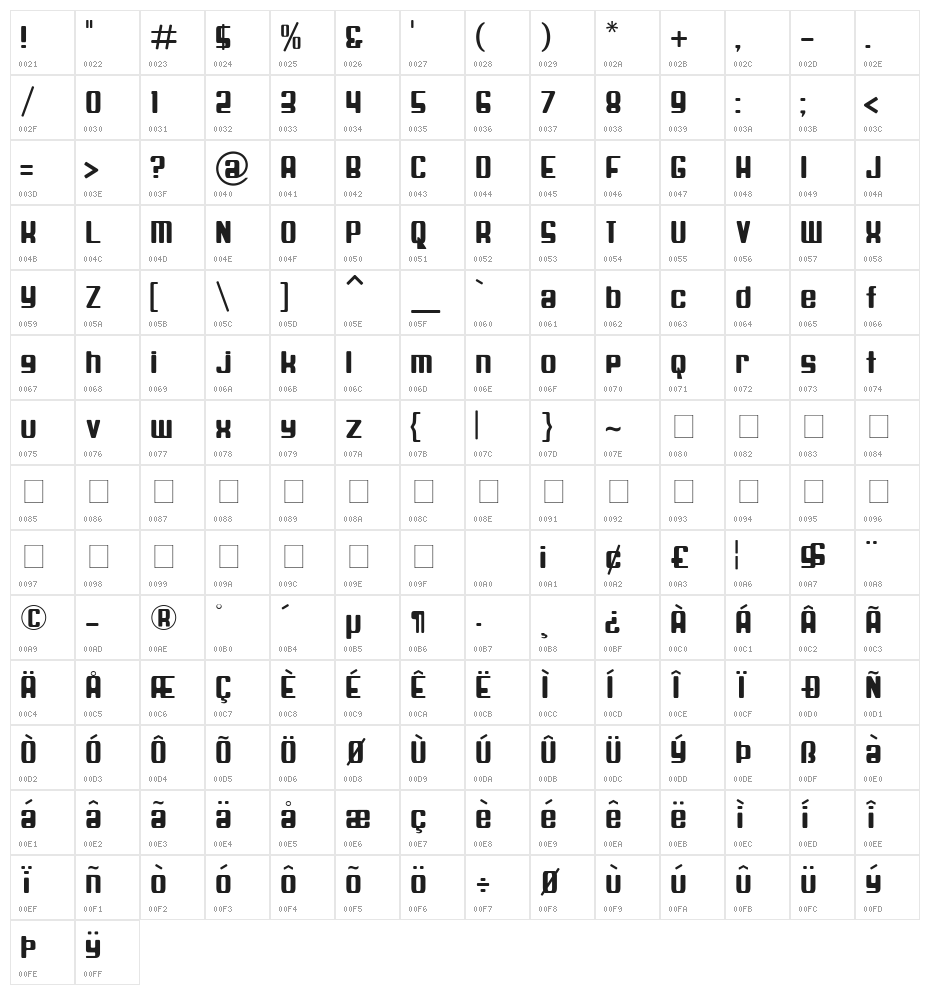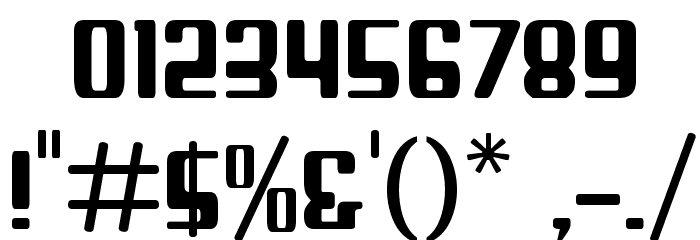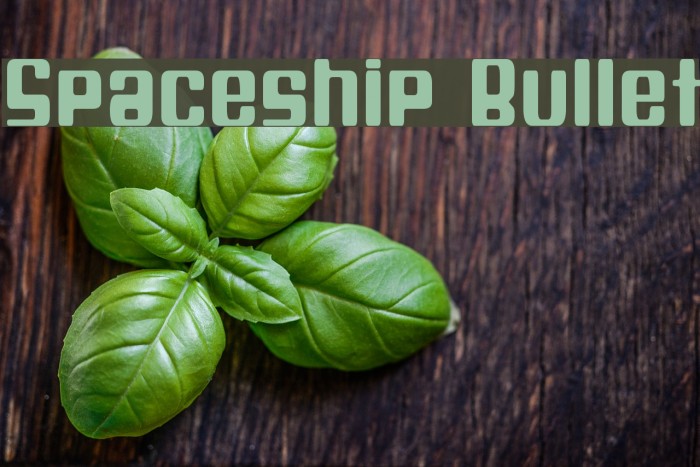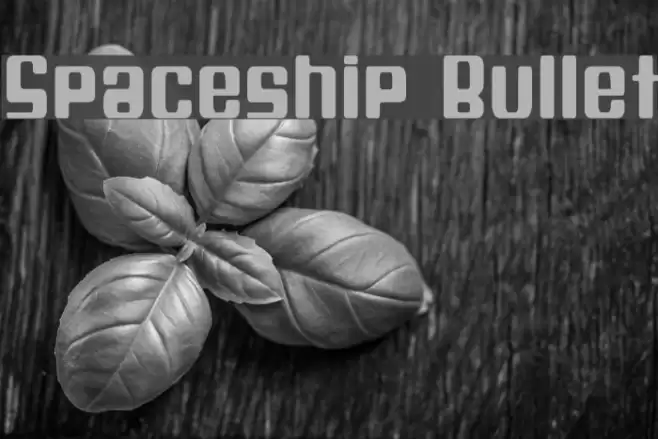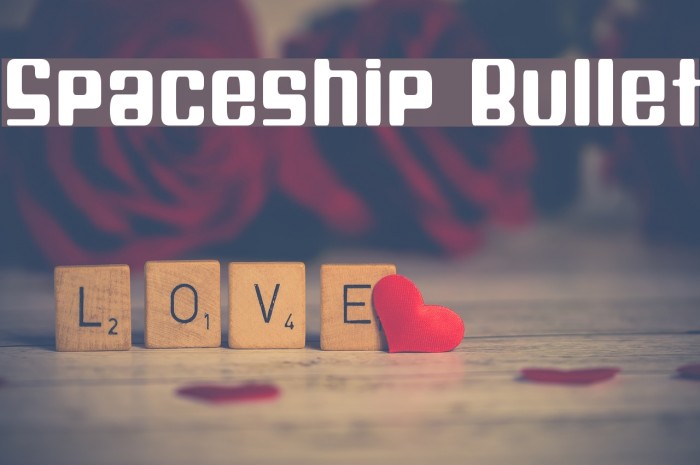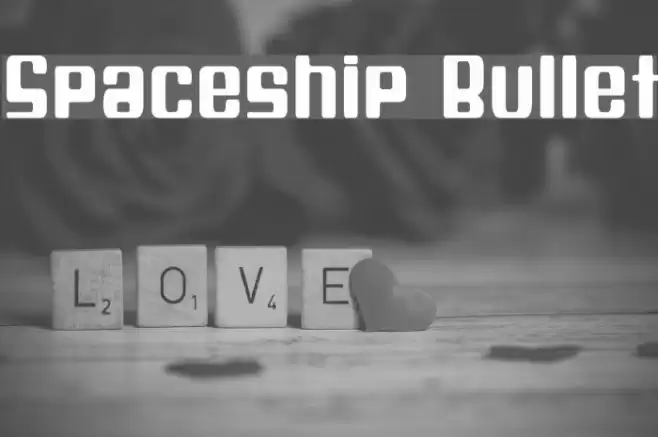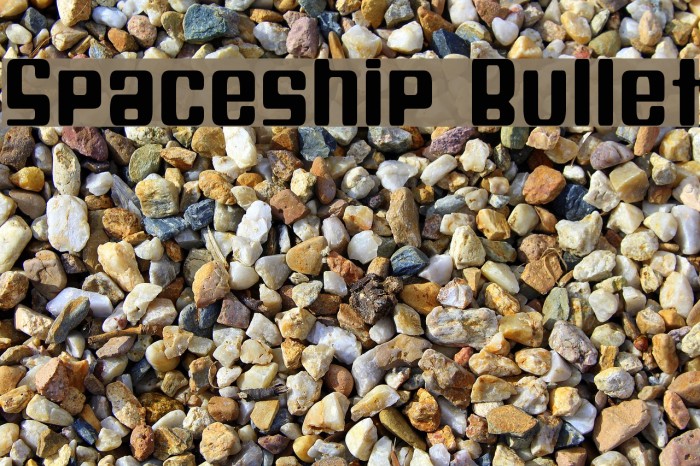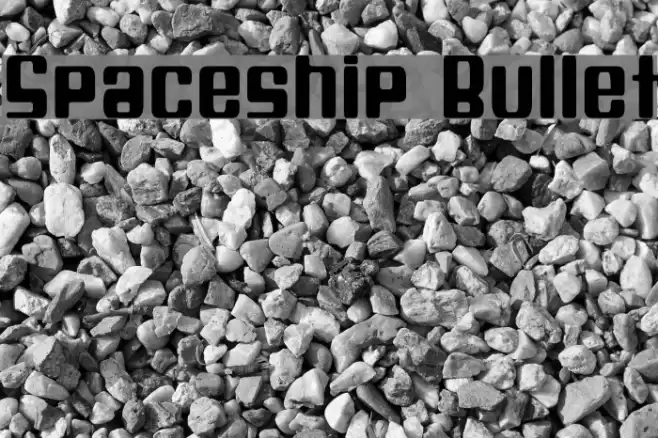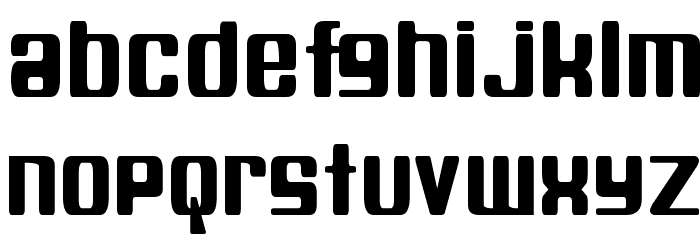
Spaceship Bullet Font
Spaceship Bullet Description
This font features a bold, futuristic design with a strong geometric structure. The characters are uniformly thick, providing a consistent and robust appearance. The uppercase letters have a squared-off look with rounded corners, giving them a modern and sleek aesthetic. The lowercase letters maintain the same geometric style, ensuring readability while adding a touch of uniqueness. The numbers are clear and bold, matching the overall style of the alphabet. Special characters are designed to complement the font's futuristic theme, making it suitable for a variety of creative applications.
| Proposed Projects | Ideal for sci-fi themed projects, technology branding, video game titles, and modern posters. |